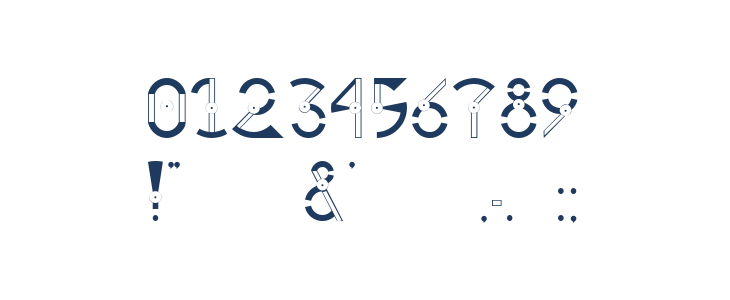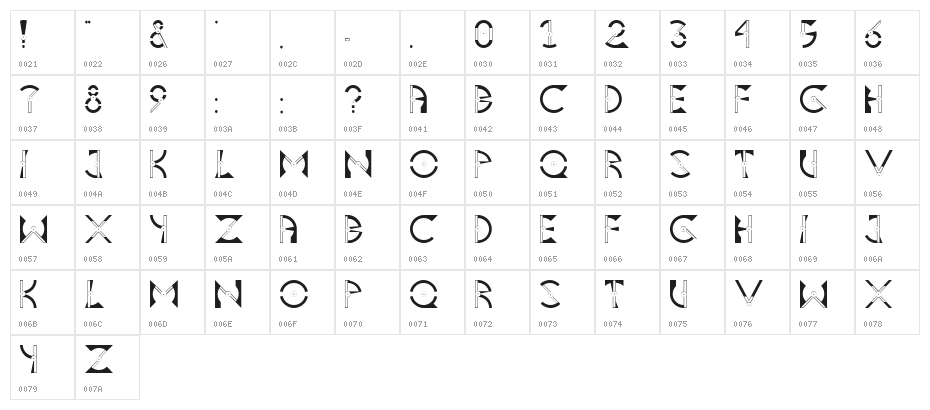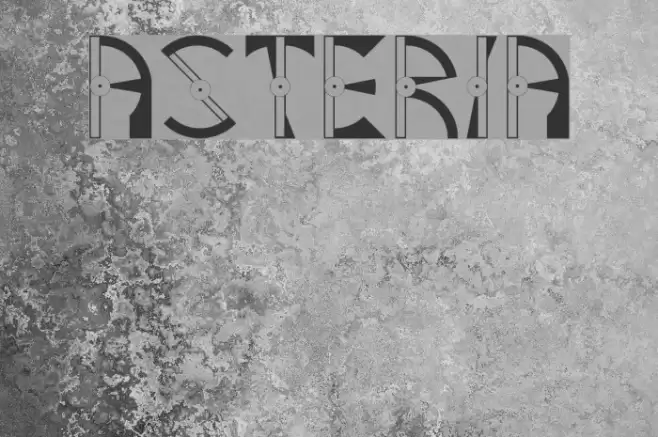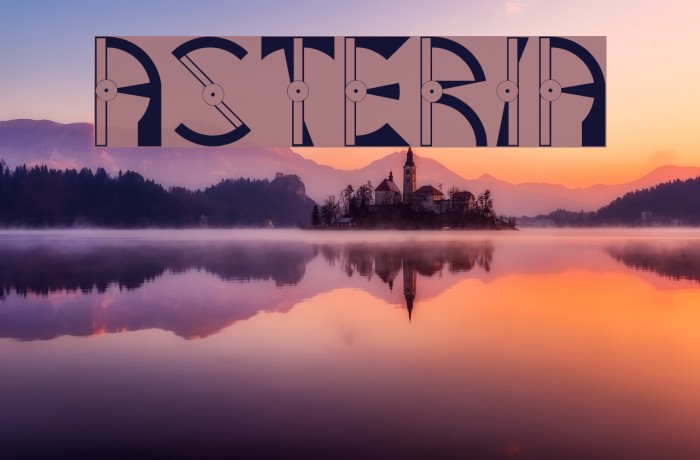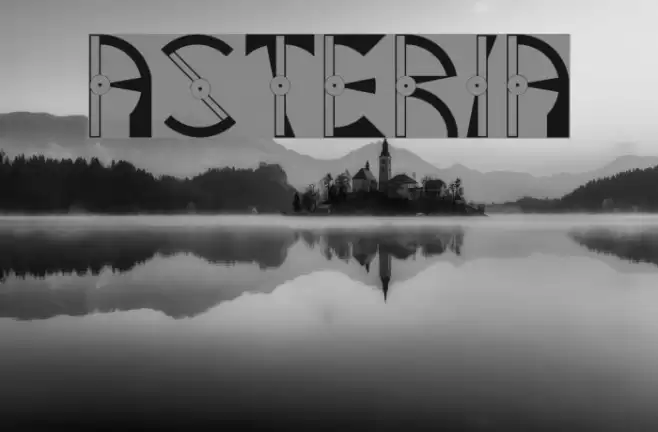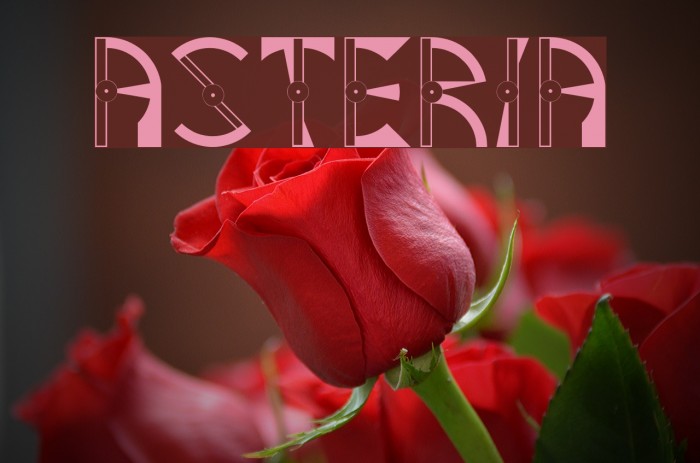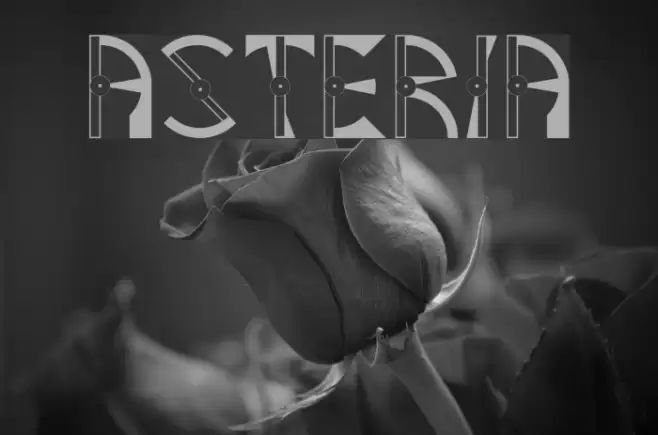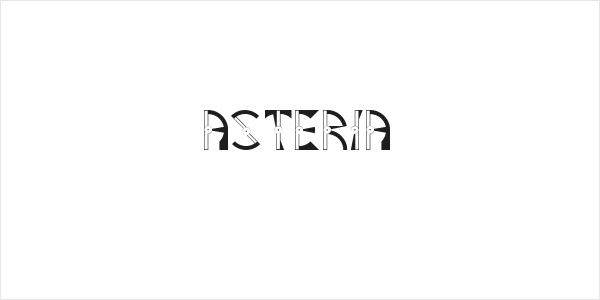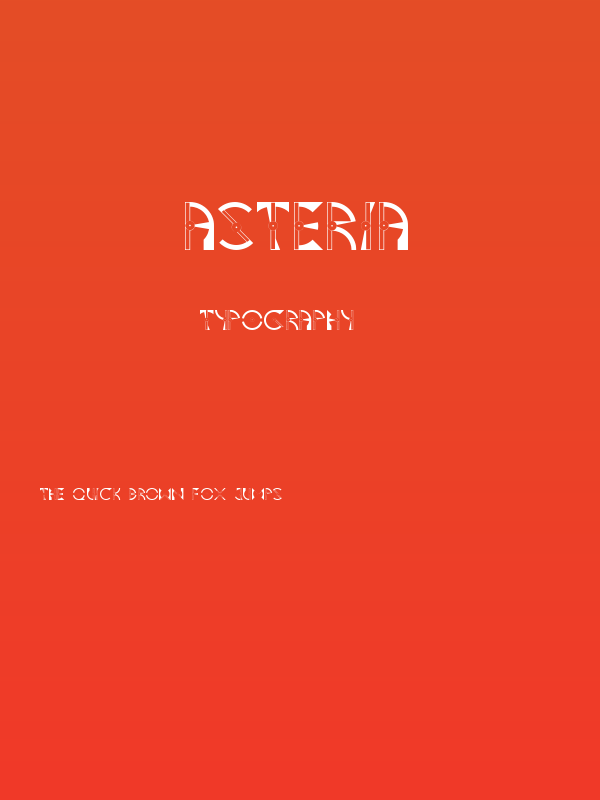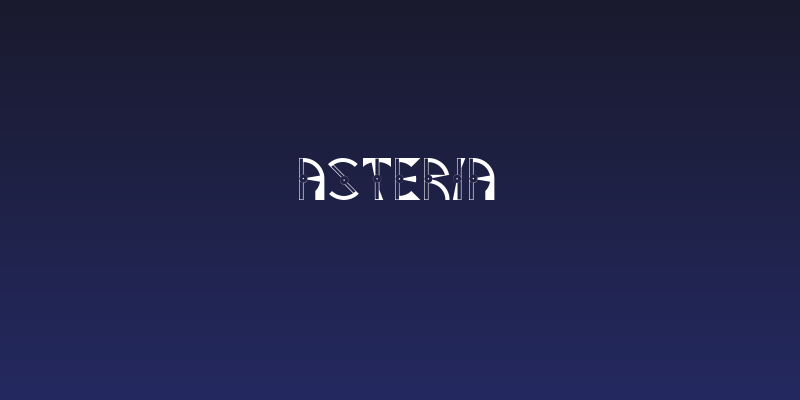
Asteria Font
Asteria Description
This font features a unique and futuristic design, characterized by geometric shapes and mechanical elements. Each letter is constructed with a combination of solid black forms and white spaces, creating a striking contrast. The inclusion of circular elements and lines mimics the appearance of gears or mechanical parts, giving it an industrial feel. The font maintains a consistent style across uppercase, lowercase, and numeric characters, with special characters also reflecting the same mechanical aesthetic. Its bold and innovative design makes it stand out, suitable for projects that require a modern and edgy look.